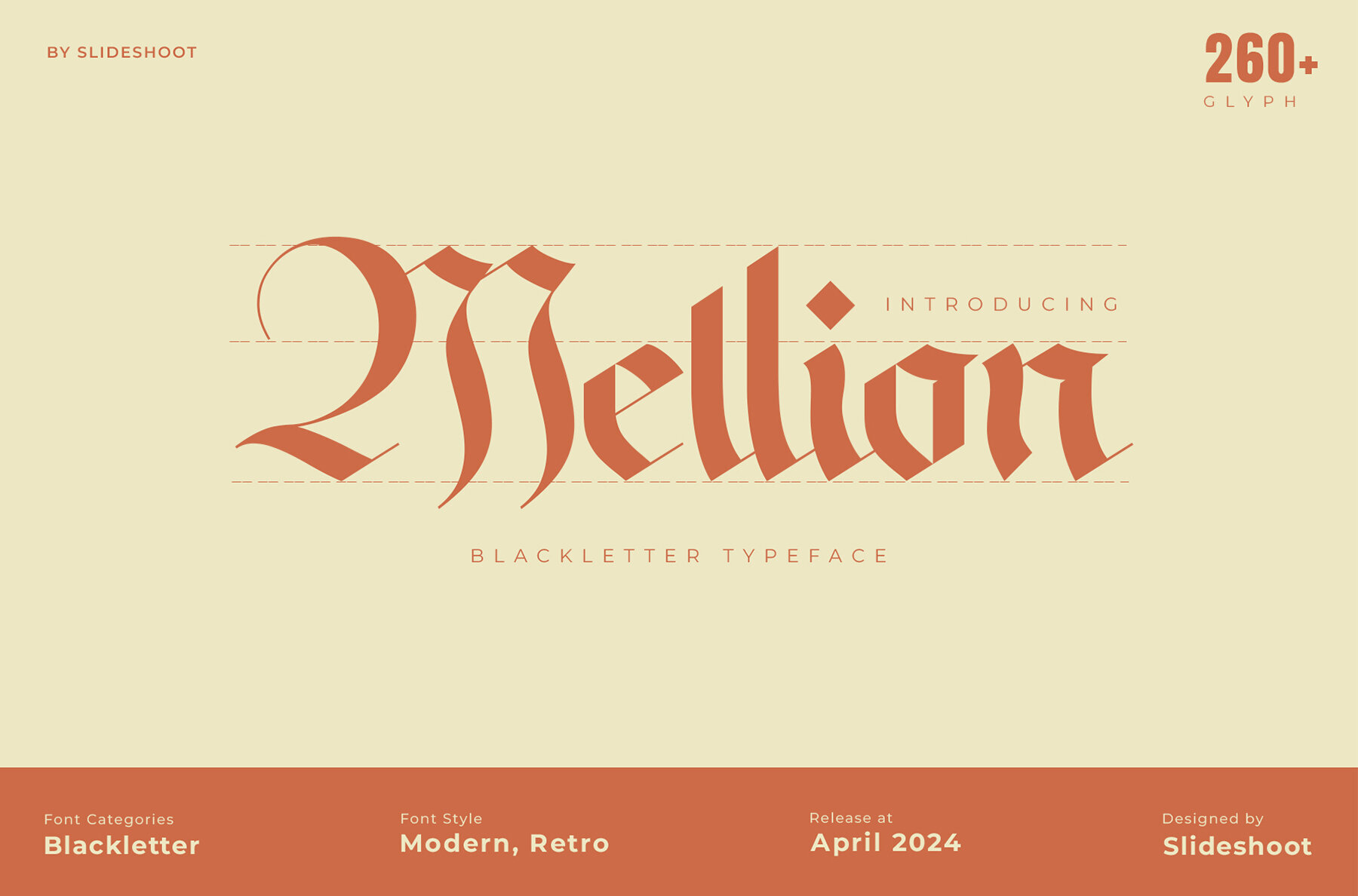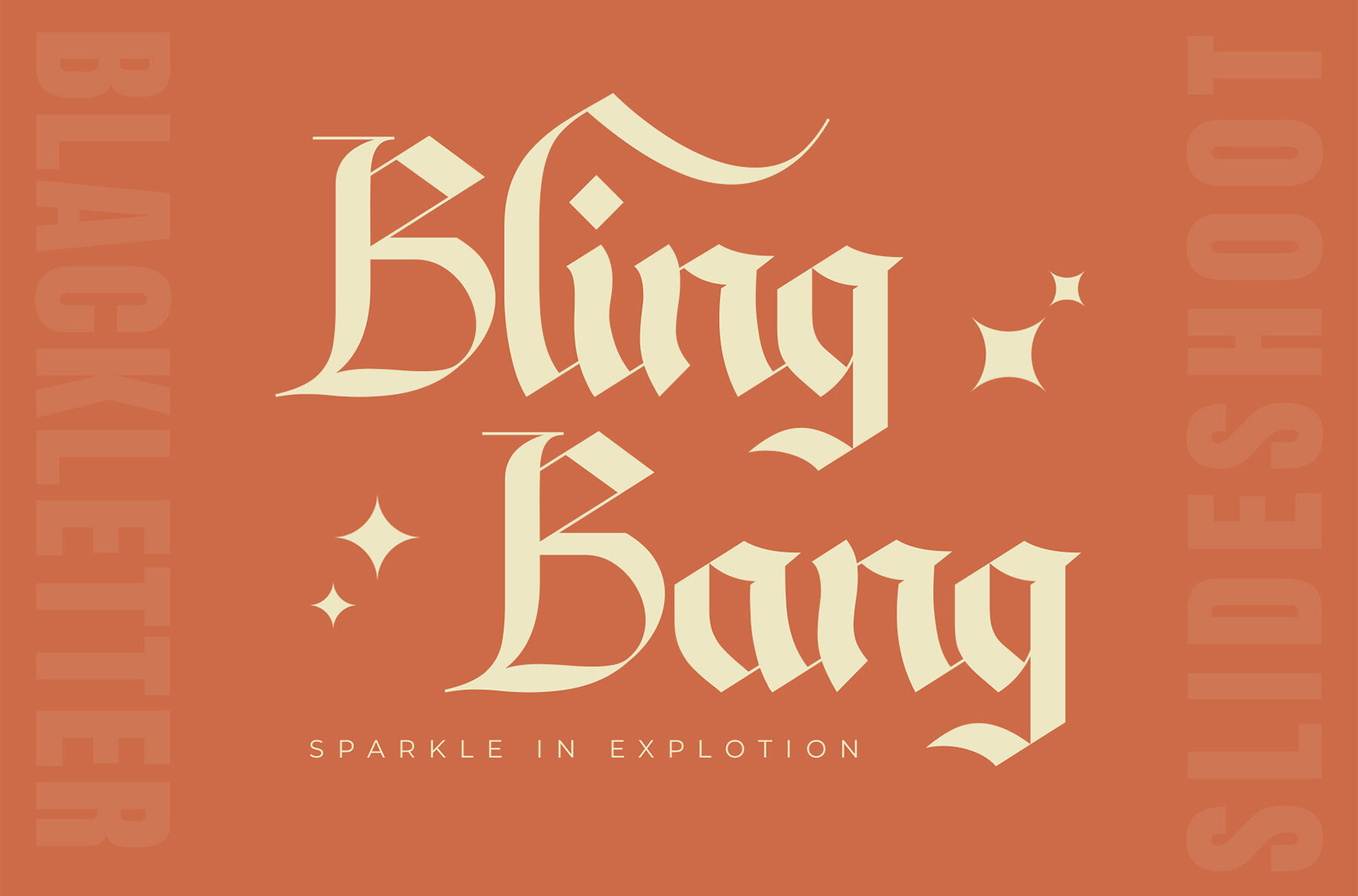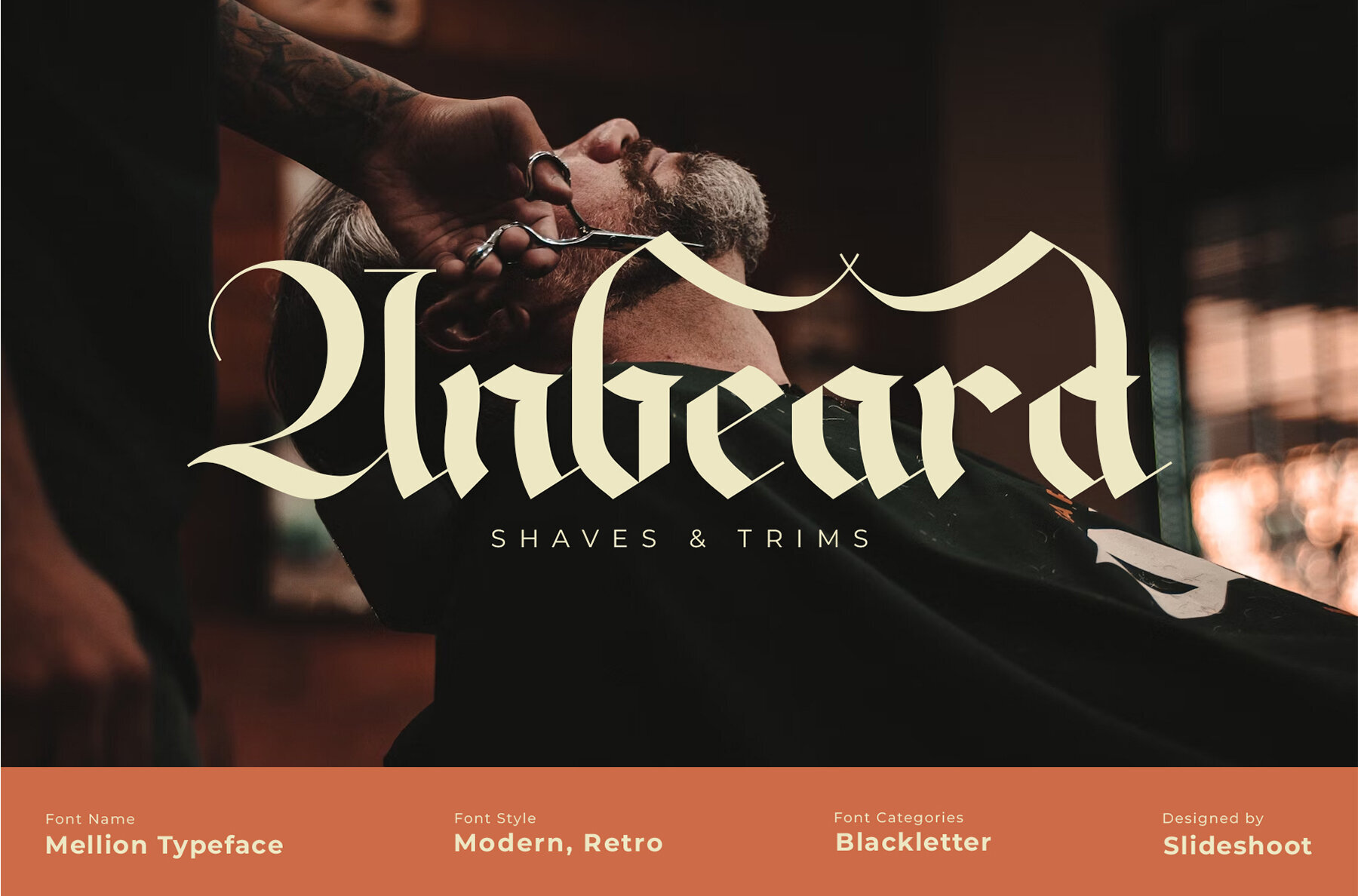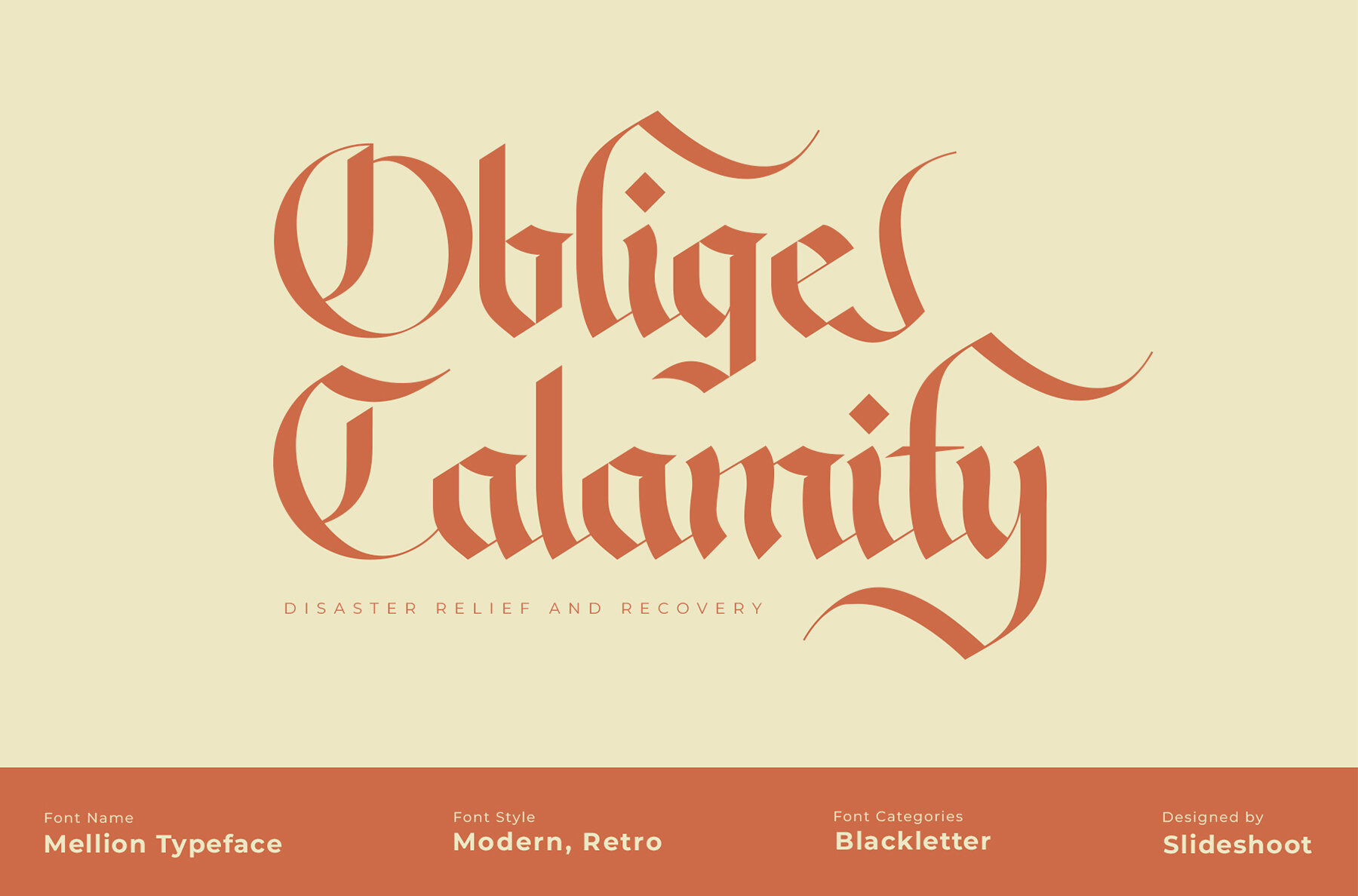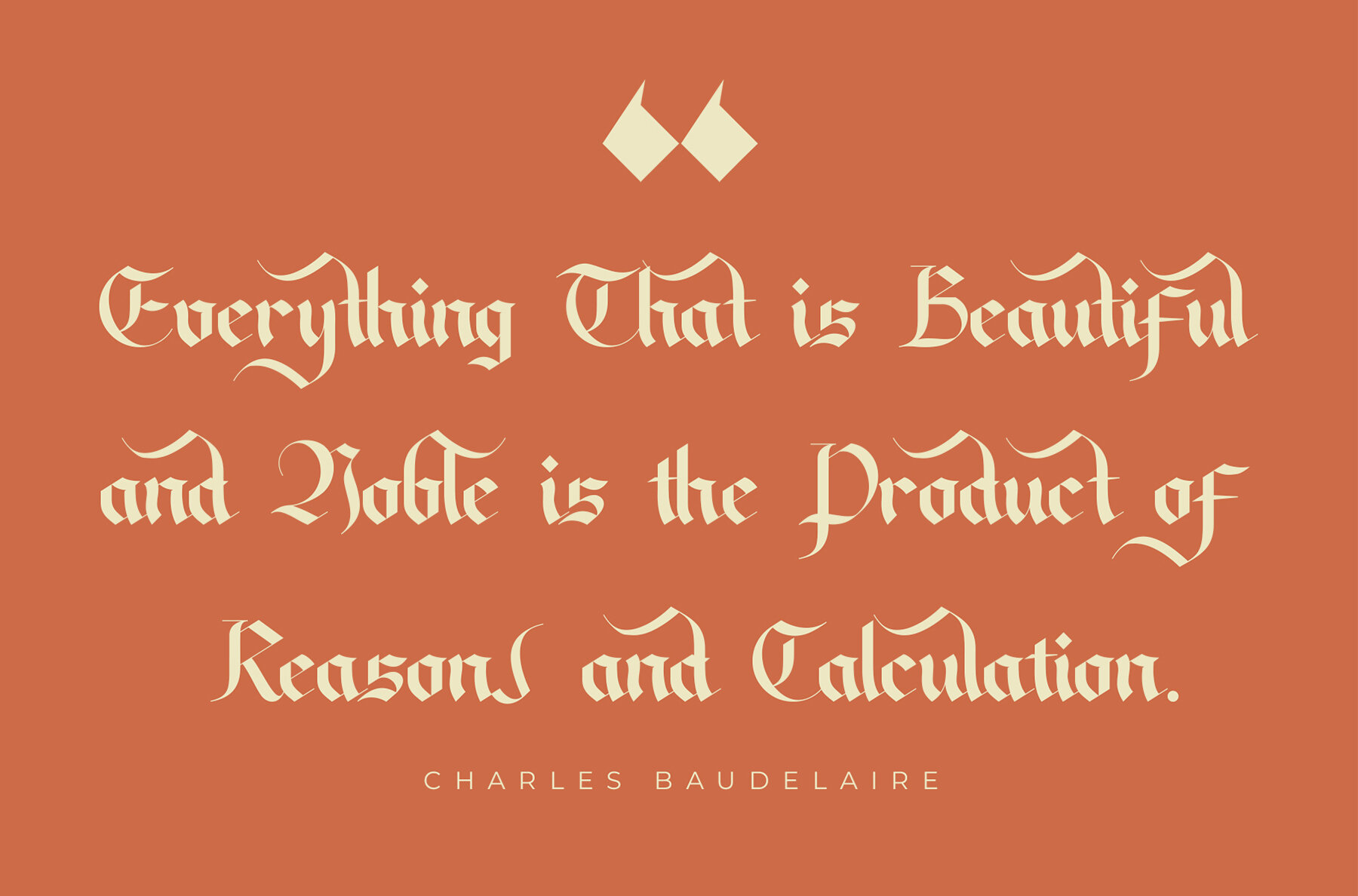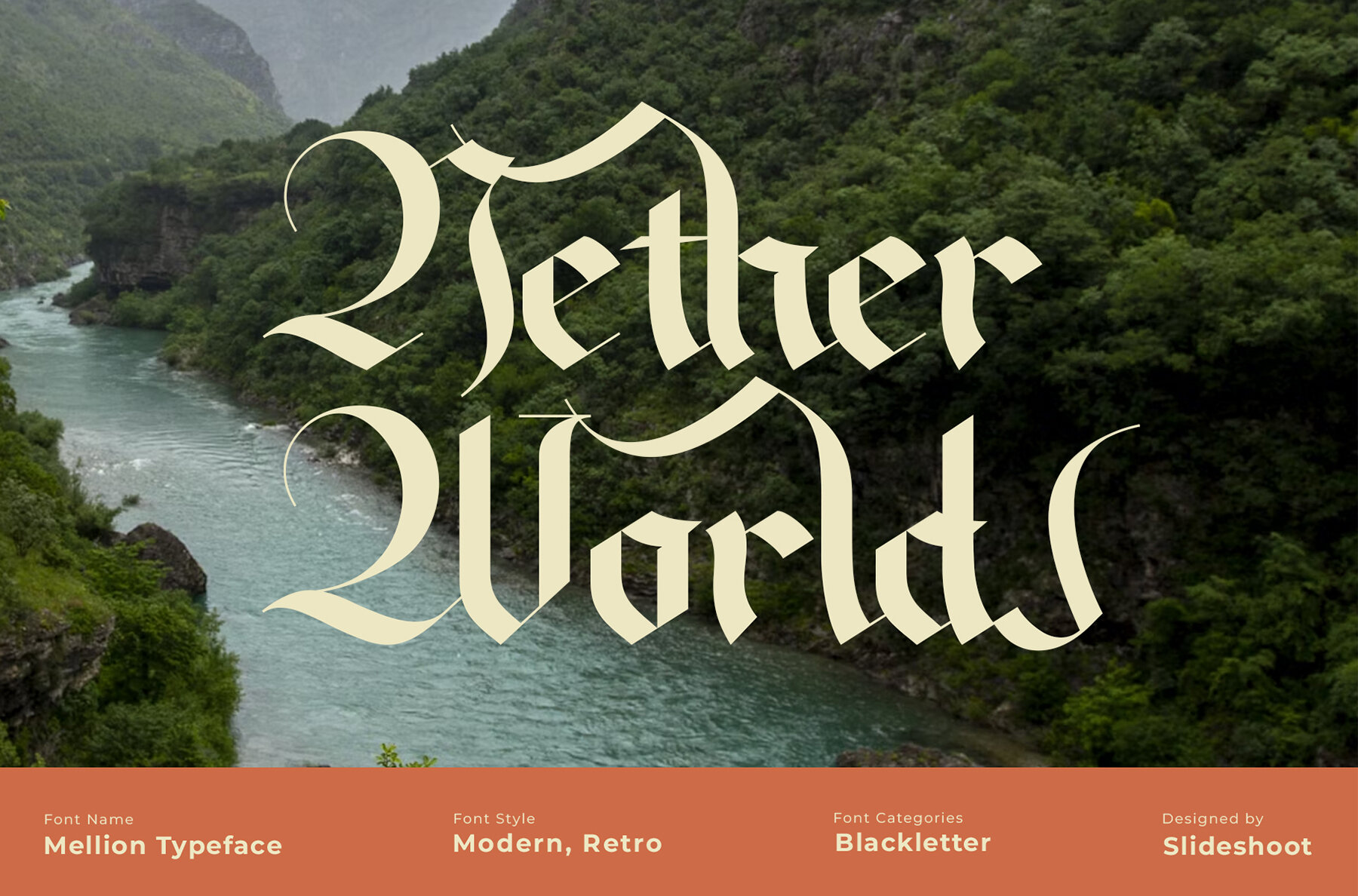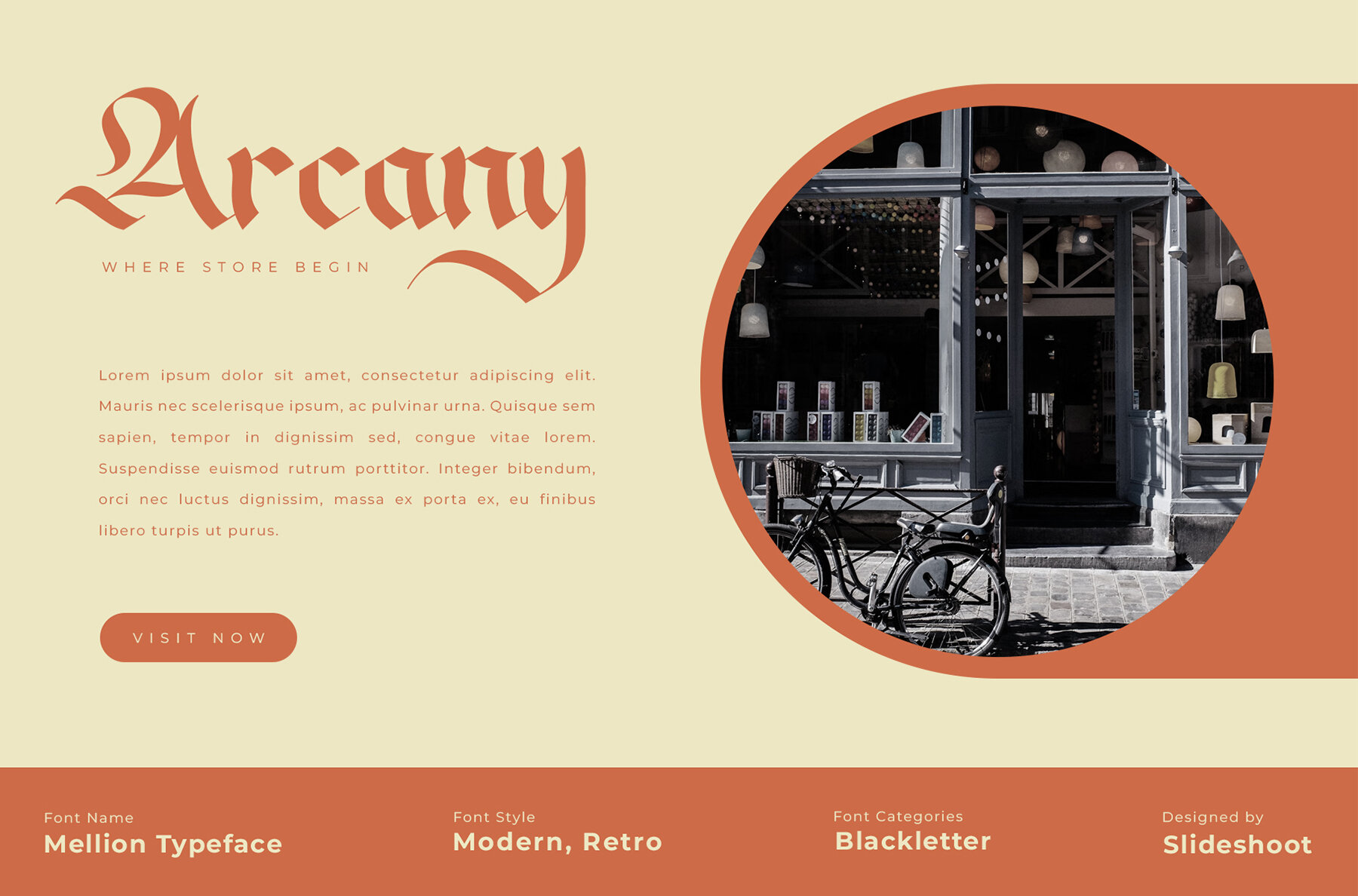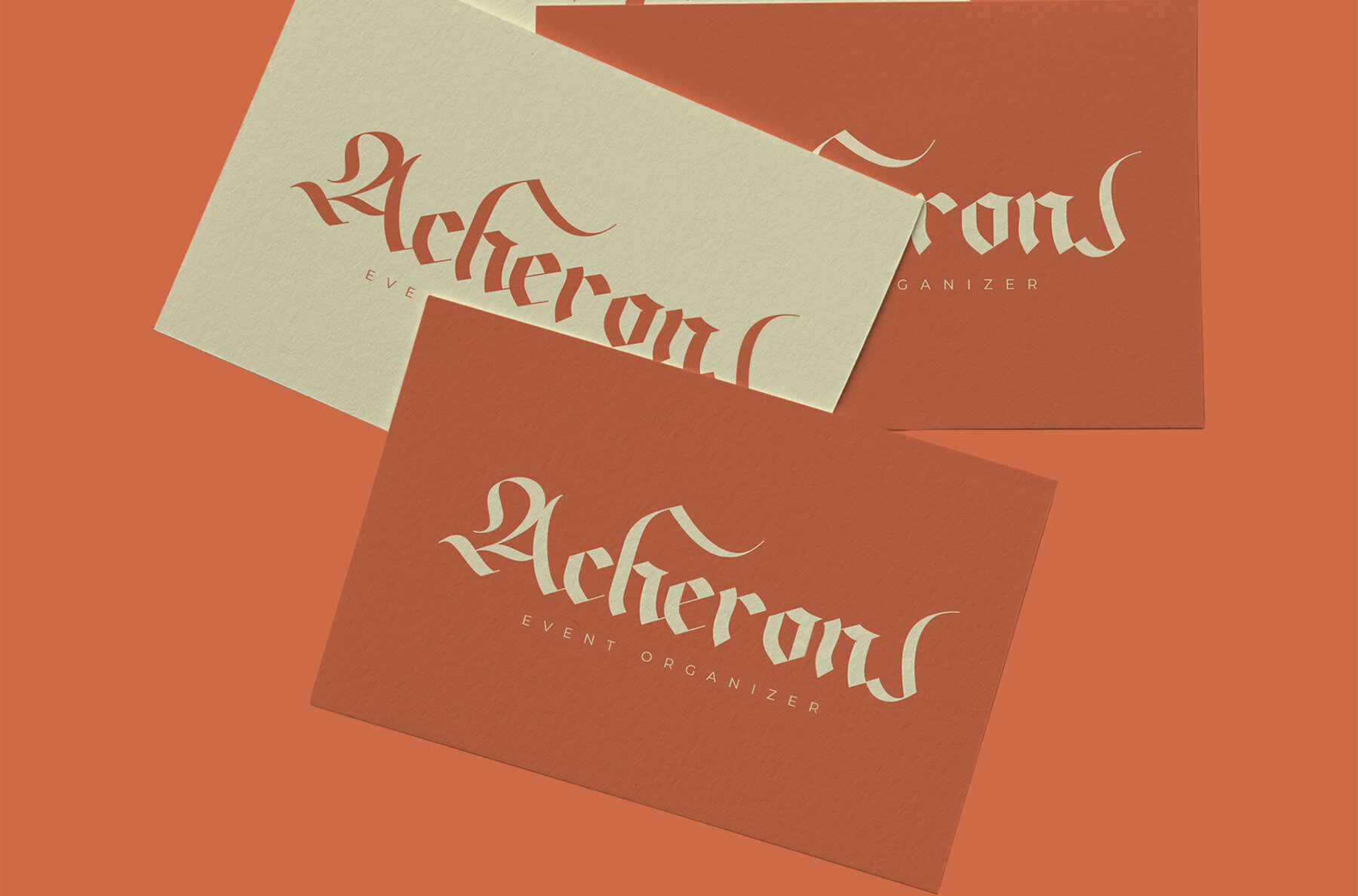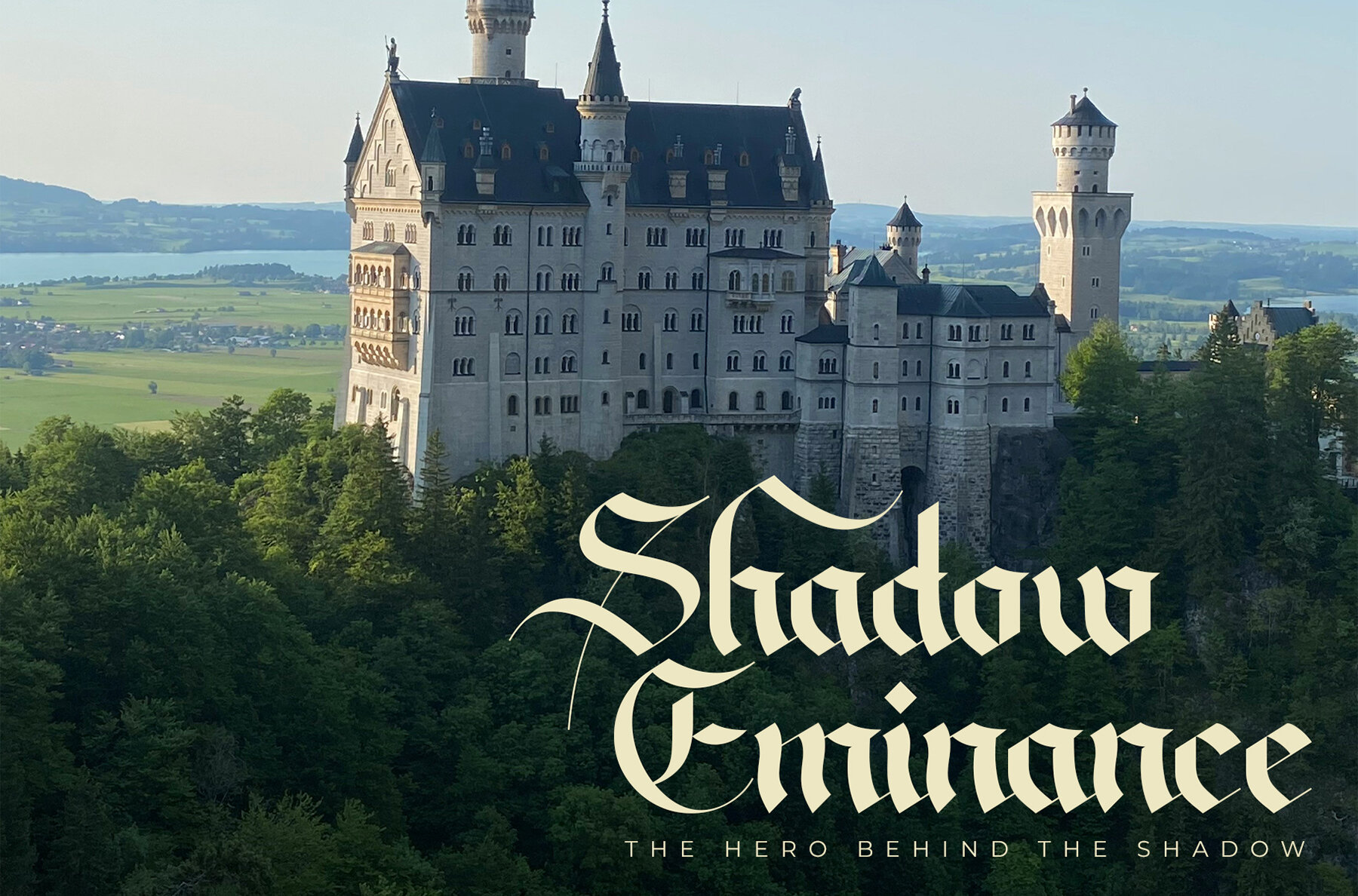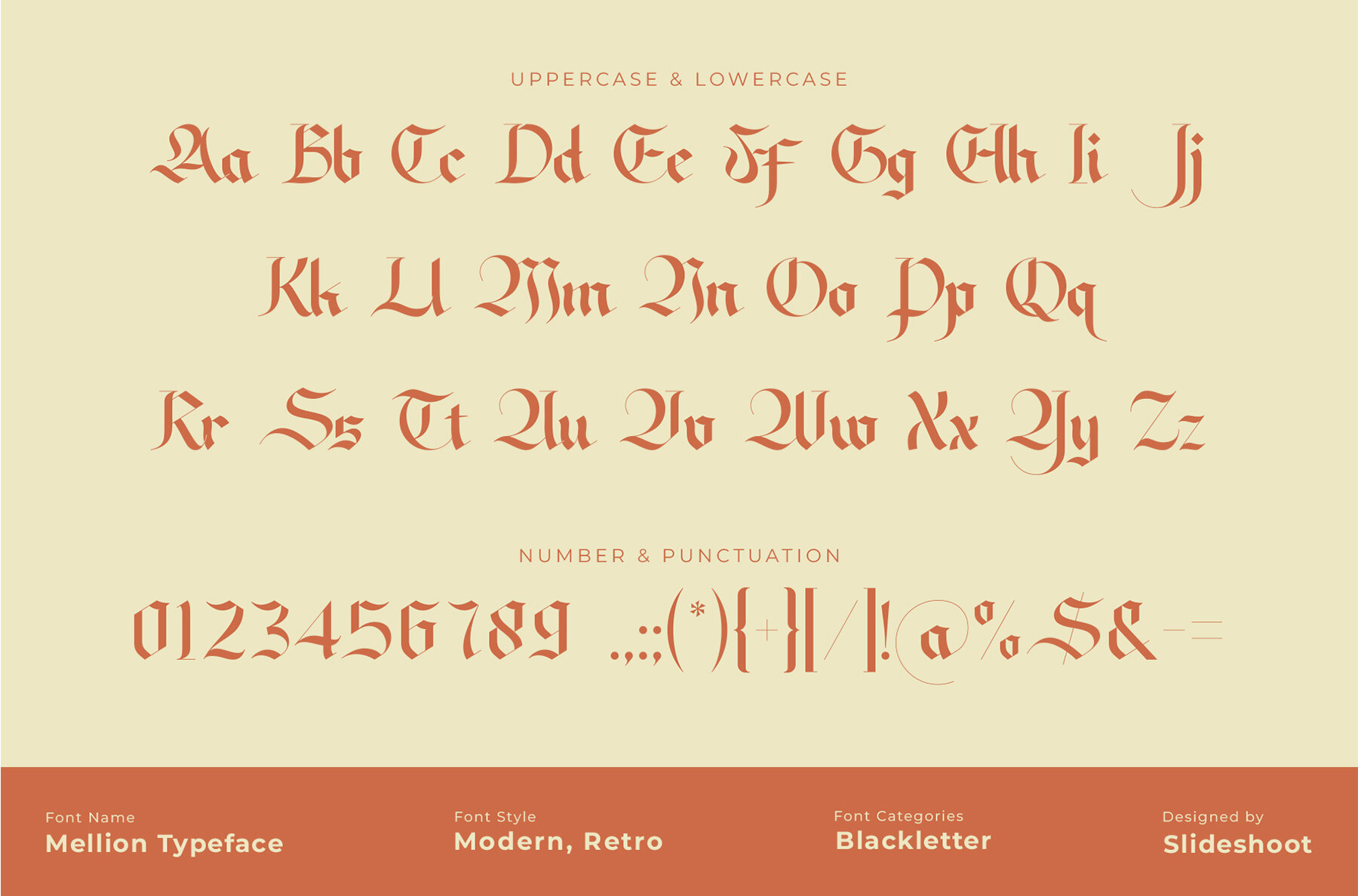
Mellion Font
Mellion Regular
Mellion is an authentic and daring blackletter font designed to make your creative projects stand out. Its stylish alternations and ligatures provide unique and eye-catching typography, perfect for a variety of design needs. This font includes both uppercase and lowercase letters, numbering, and punctuation, ensuring you have the flexibility and precision required for diverse design applications.